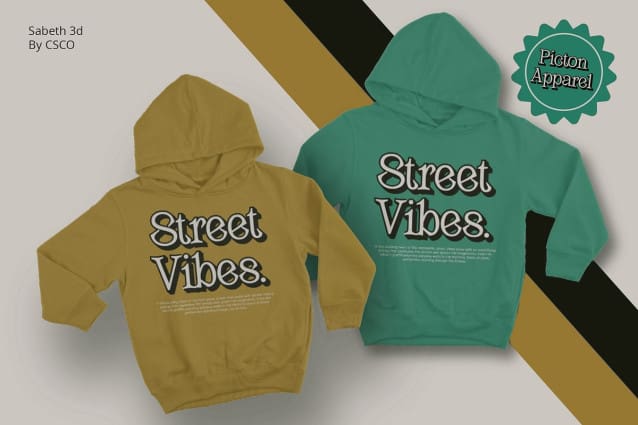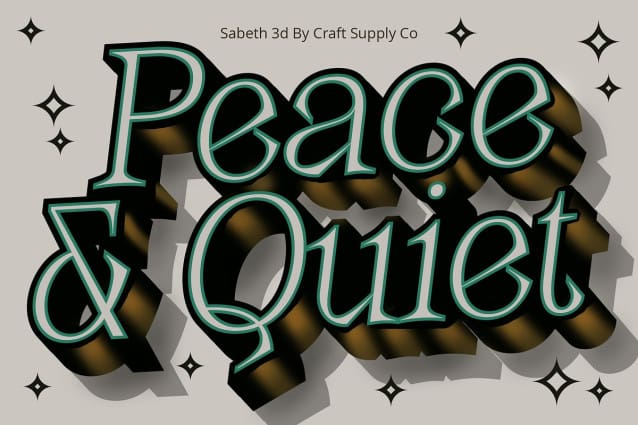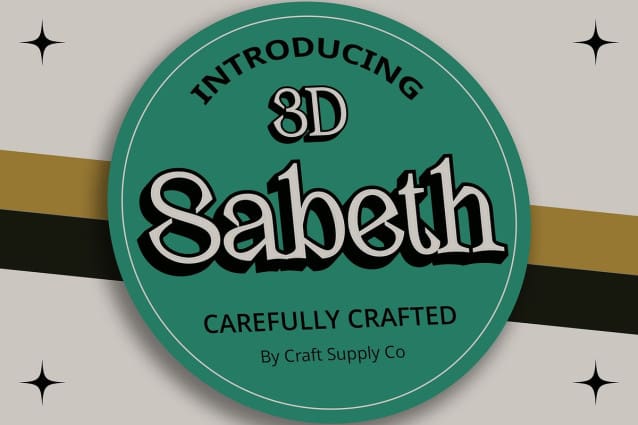
Sabeth 3D Font
Sabeth 3D Font: Elevating Serif Display Typography.  Sharp Serif Design Sabeth 3D features serif characters with distinct, pointy ends, adding a touch of sharpness and character to each letterform.
Dynamic Effects Enhanced with outline and extrude effects, Sabeth 3D transforms into a captivating display font that demands attention and makes a lasting impression.
Perfect for Display Purposes Tailored specifically for display use, This font excels in various contexts, from branding projects to promotional materials, thanks to its bold and attention-grabbing appearance.
Versatile Application Beyond its striking aesthetics, This font offers versatility in application. Whether used in print or digital media, its unique combination of sharp serifs and dynamic effects ensures that your message stands out effectively.
Bold Serif Display Choice This font emerges as a bold and distinctive choice for serif display typography. With its sharp serifs and dynamic effects, it adds flair and personality to any design project, making it an ideal option for those seeking to make a statement with their typography. Step into the world of Sabeth 3D and elevate your designs with its unique charm and versatility.